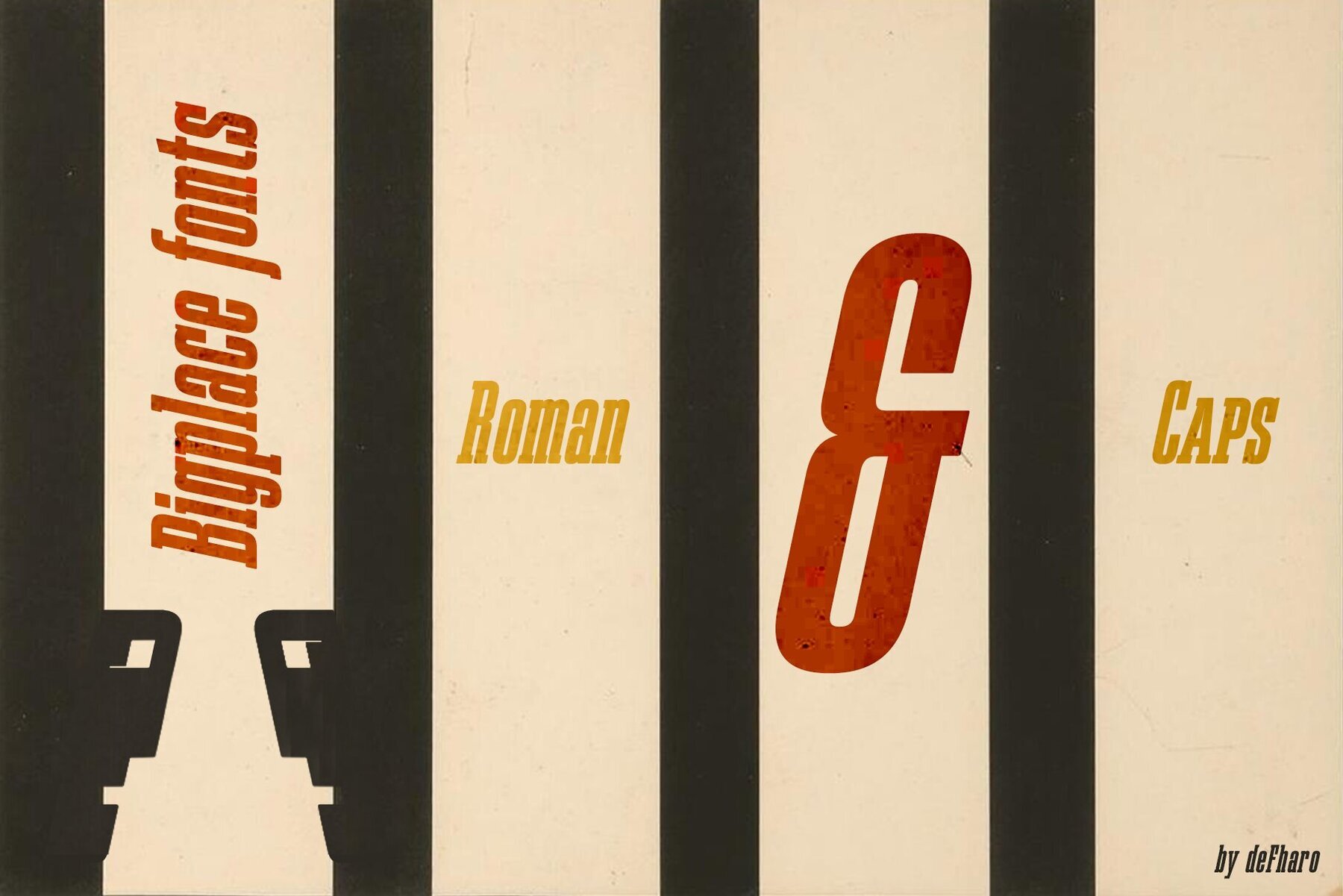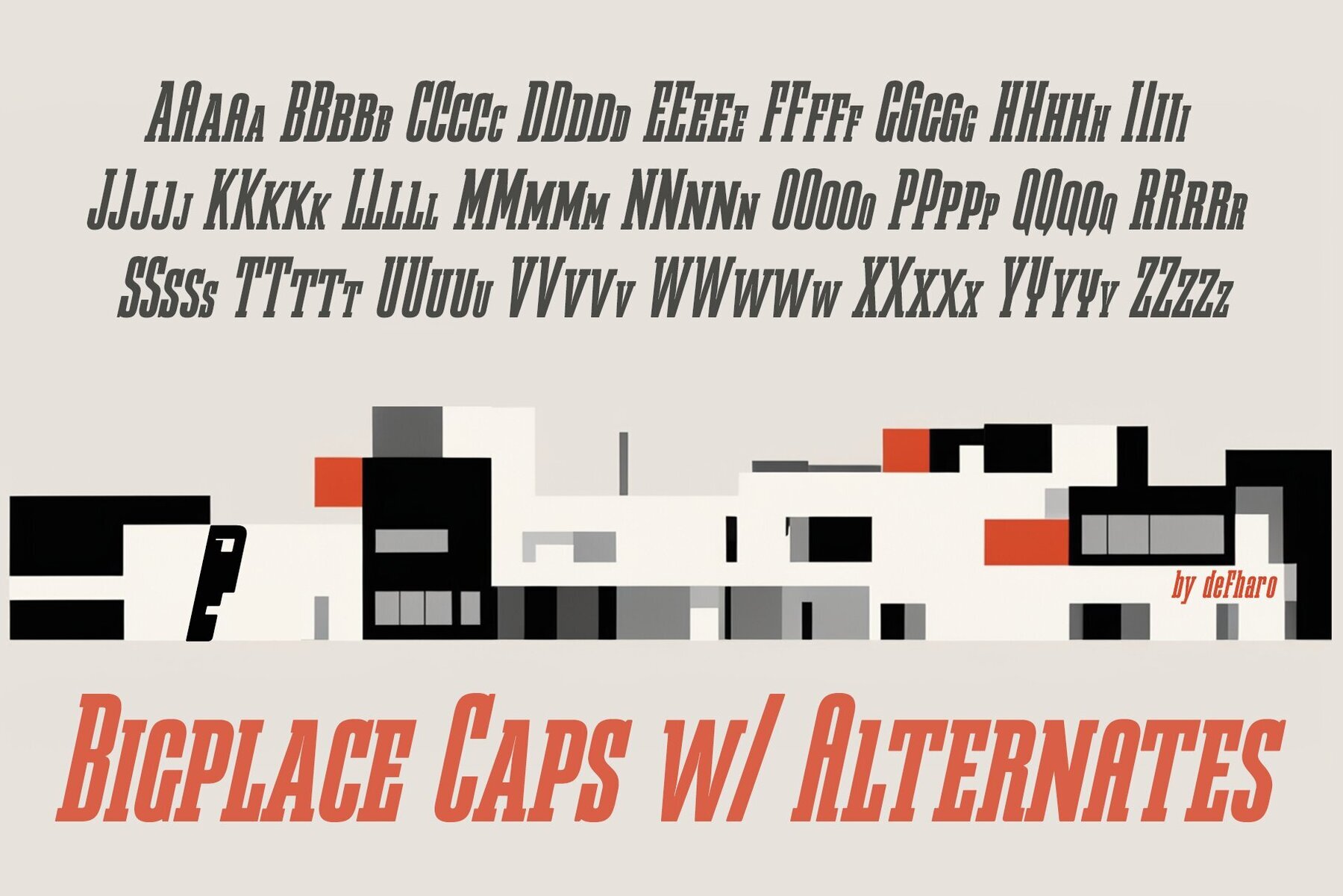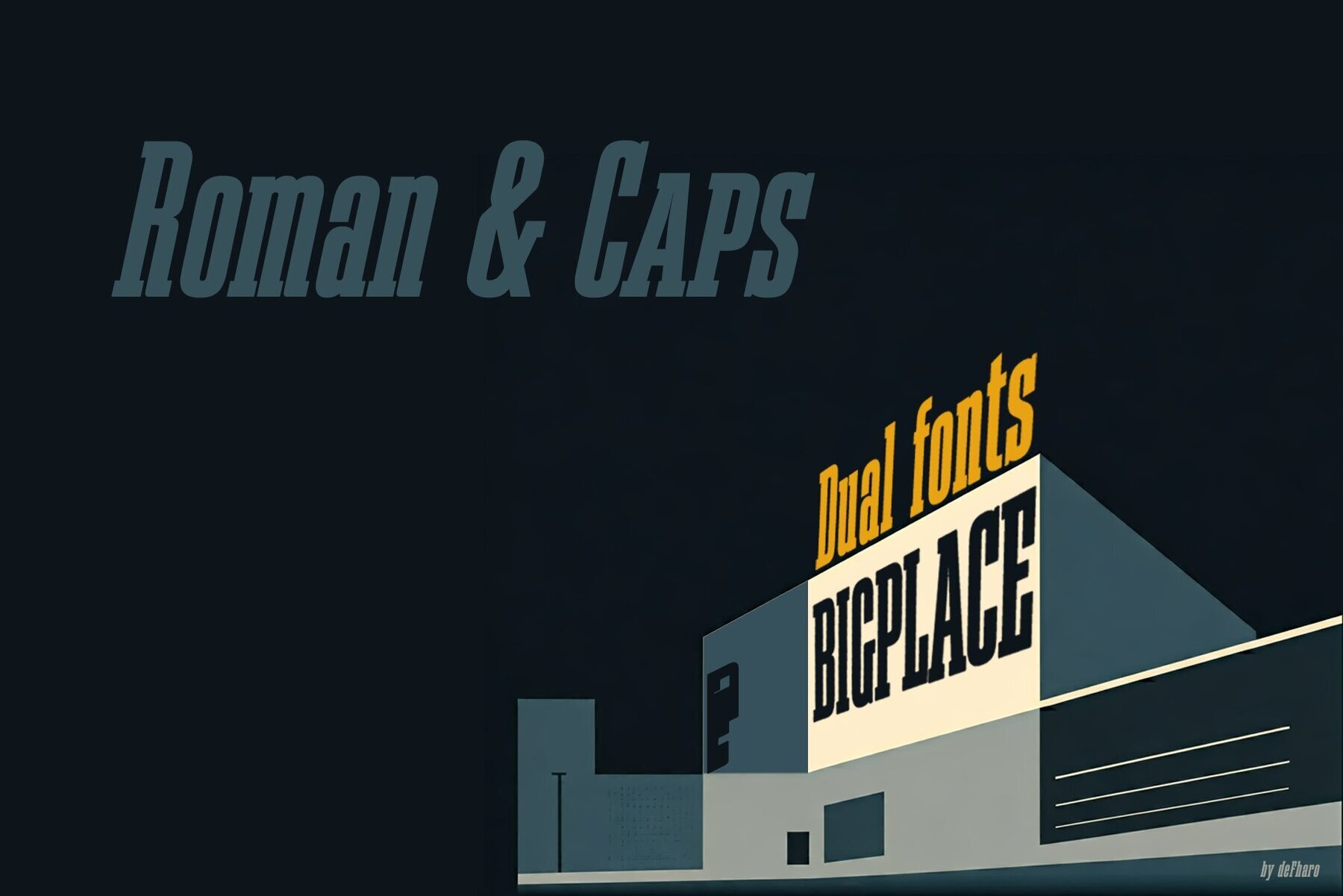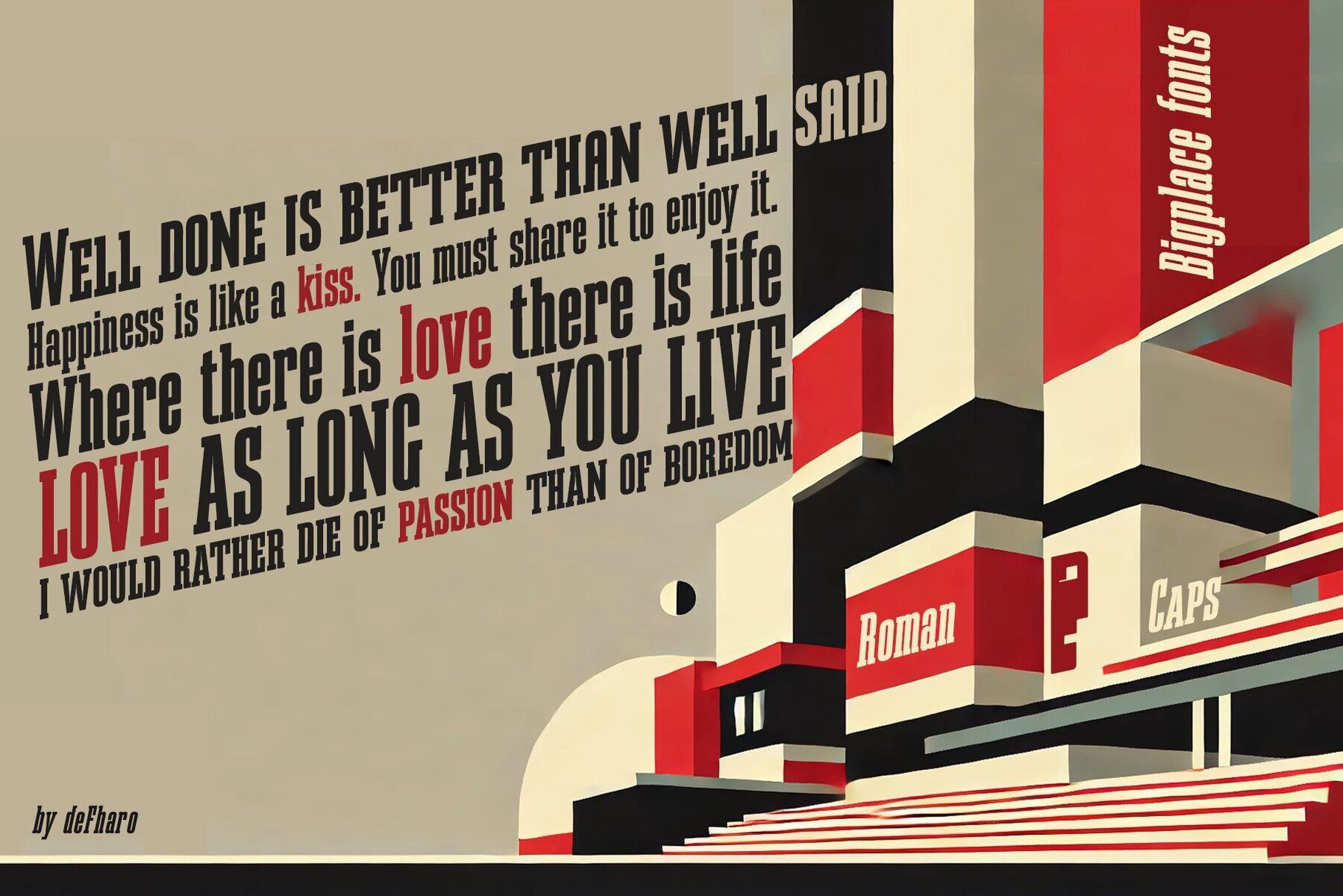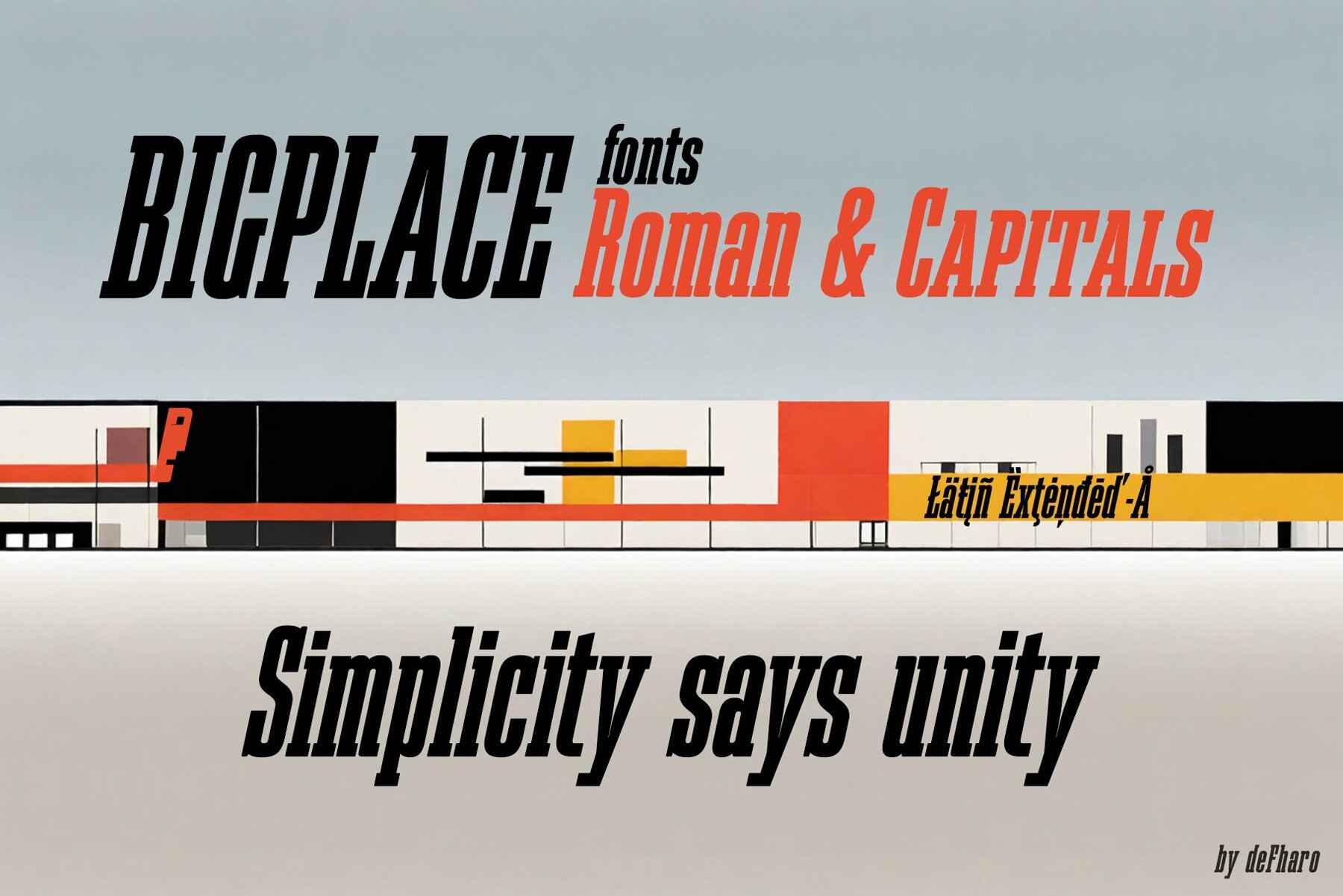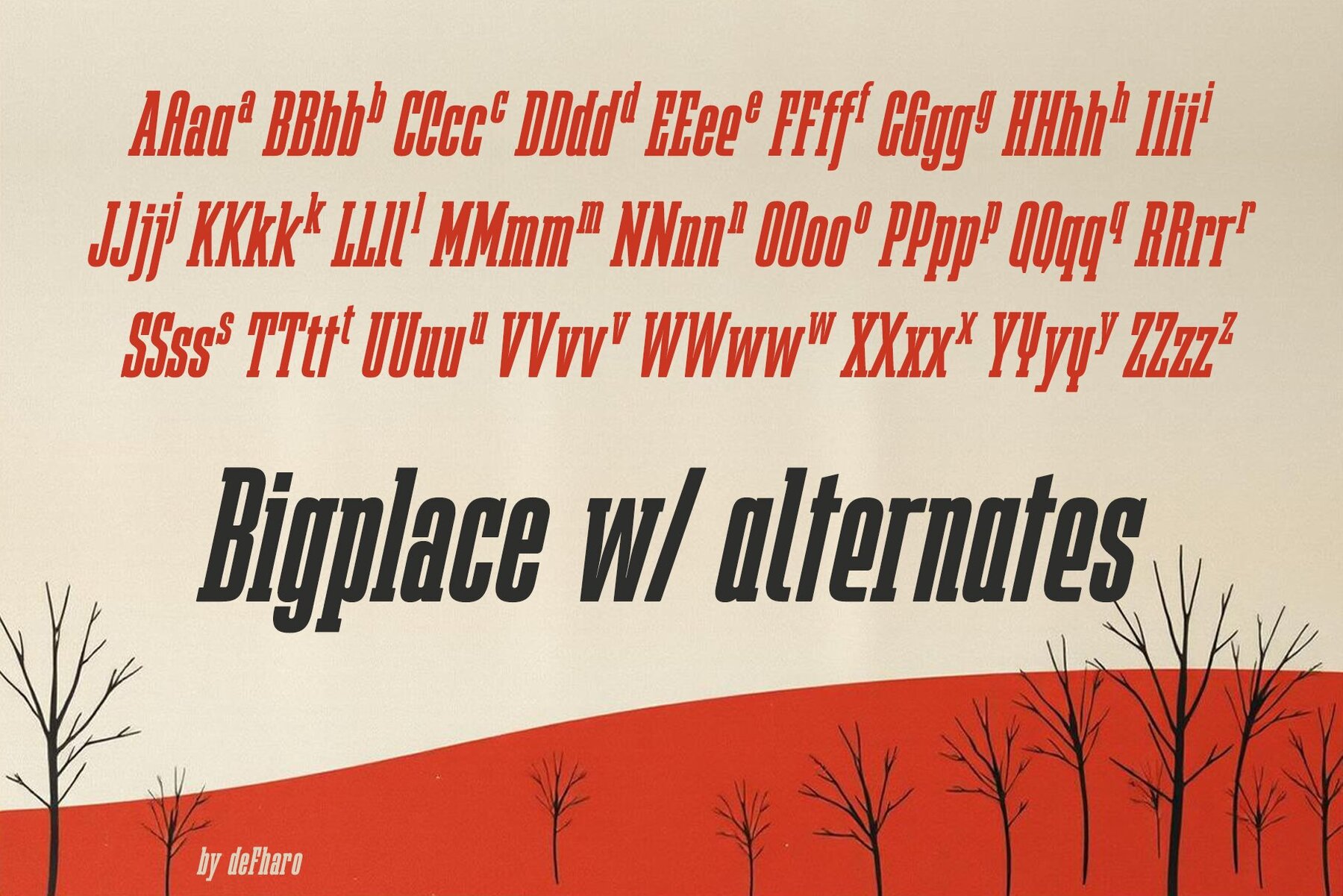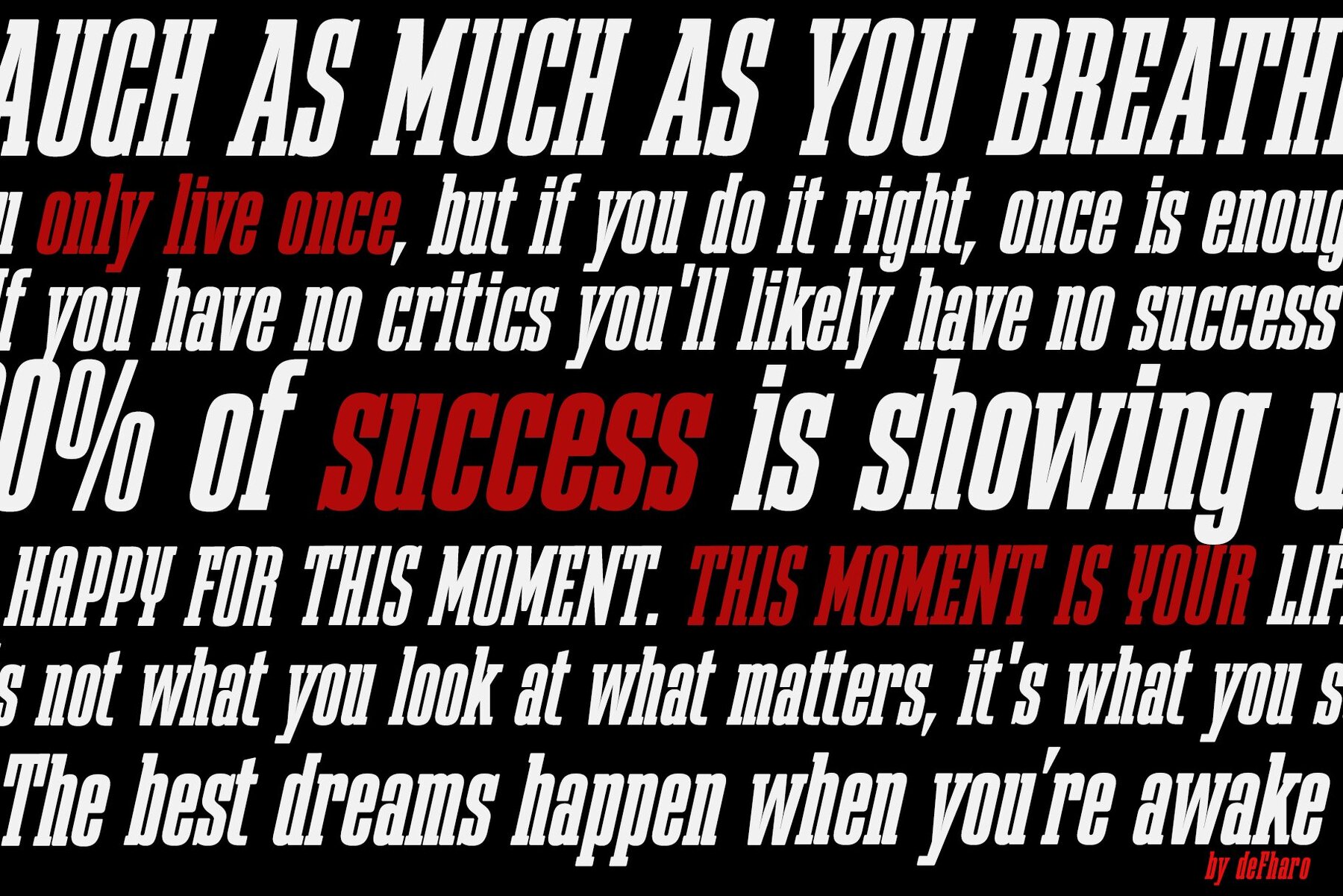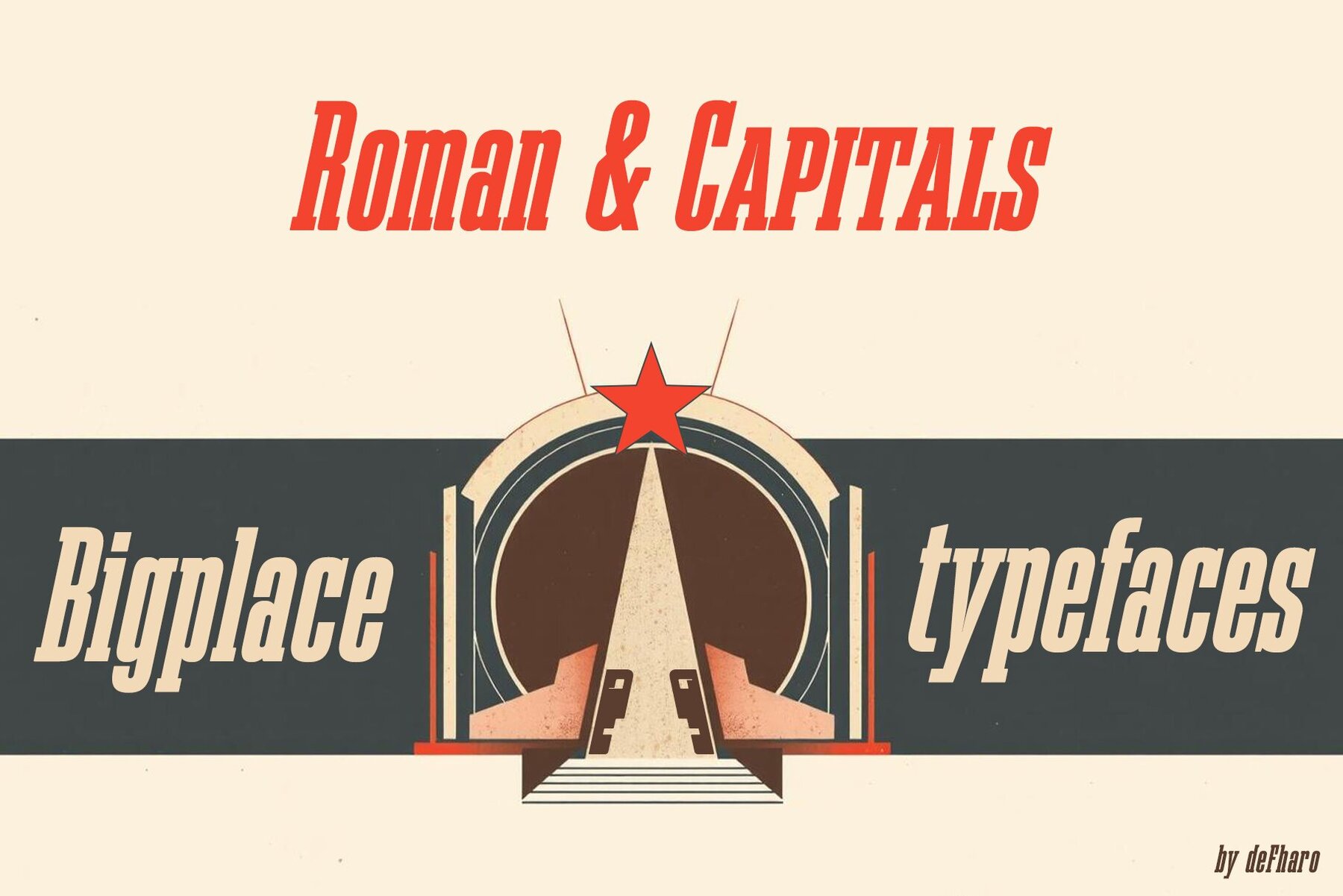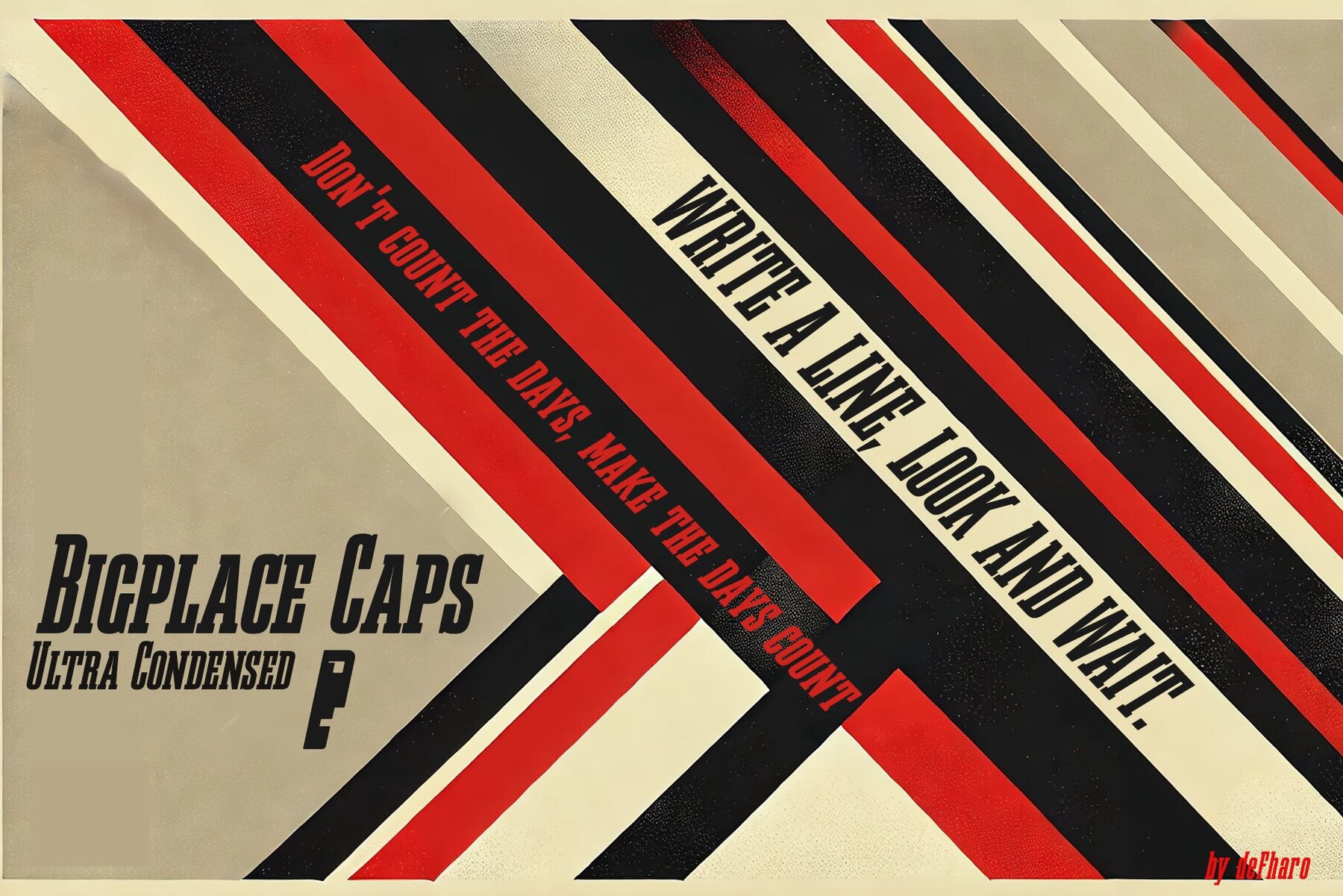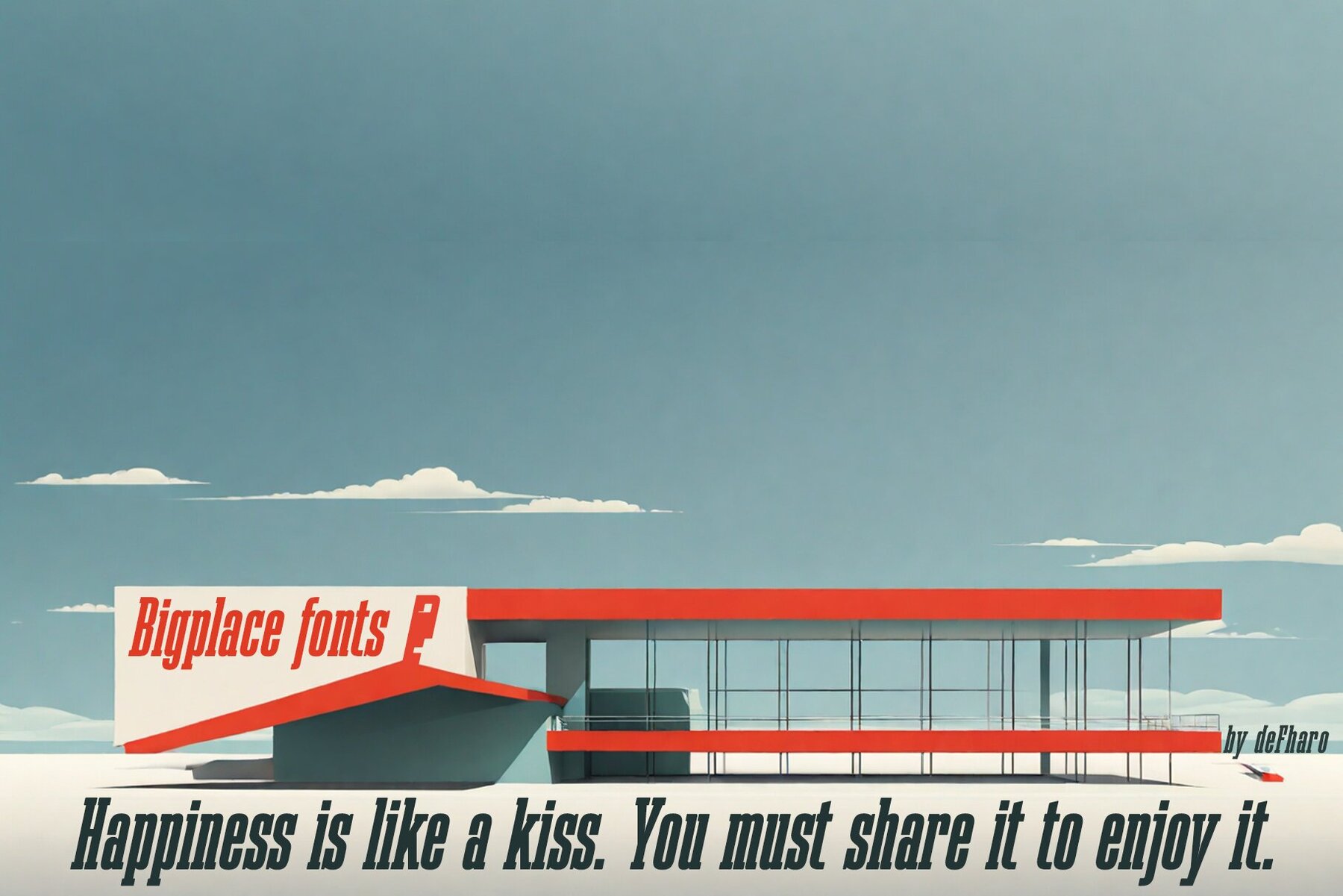
Bigplace Font
Bigplace Roman
Bigplace Caps
Bigplace redefines modern design with its striking Extra Condensed structure combined with an imposing Extra Bold weight. Embracing the strength of a slab serif with the dynamic energy of an oblique stroke, Bigplace stands as a hallmark of both style and functionality. Inspired by the avant-garde movements of the Bauhaus and Soviet Constructivism, this typeface embodies a blend of historical influence and contemporary edge to elevate your designs.Bigplace: A Typeface with Bold Impact